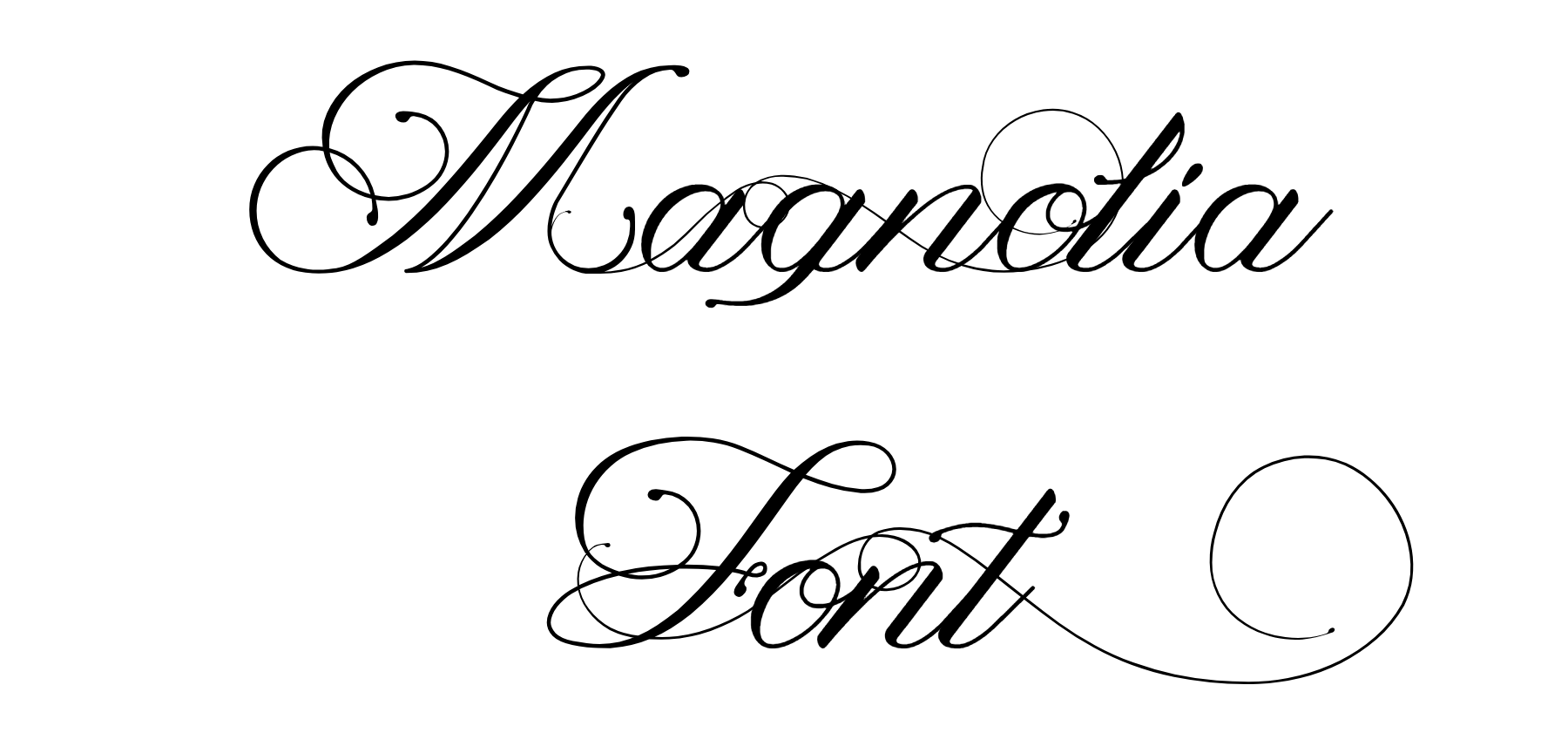
Magnolia
Magnolia is a calligraphy font designed by M.K.V. It has that hand-lettered, flowing feel people look for when regular type seems too stiff. The free download includes two styles, and you can try every one of them with your own text in the preview above.
With complete upper and lowercase letters and all ten digits, Magnolia is ready for real wording, not just a single headline. Common punctuation such as &, !, ? and @ is included as well. It also has the accented letters you need for Spanish, French, Portuguese and Italian.
Ligatures and Smart Letters in Magnolia
Magnolia is a natural fit for wedding invitations, certificates and elegant quotes. Its lowercase letters are small compared to the capitals, so set it a size or two bigger than usual. Script fonts read best in short bursts, so keep it to names, titles and one-line quotes. Skip all caps: script capitals are drawn to start a word, not to fill one. Because the family has more than one style, you can mix them in a single design for headings, subheadings and highlights.
Does Magnolia have ligatures?
Yes. Magnolia has ligatures that turn on by themselves in most design apps and browsers, so you don't need to do anything special.
Does Magnolia support accented letters?
Yes. Magnolia includes the accented letters needed for Spanish, French, Portuguese and Italian, so it works for more than just English.